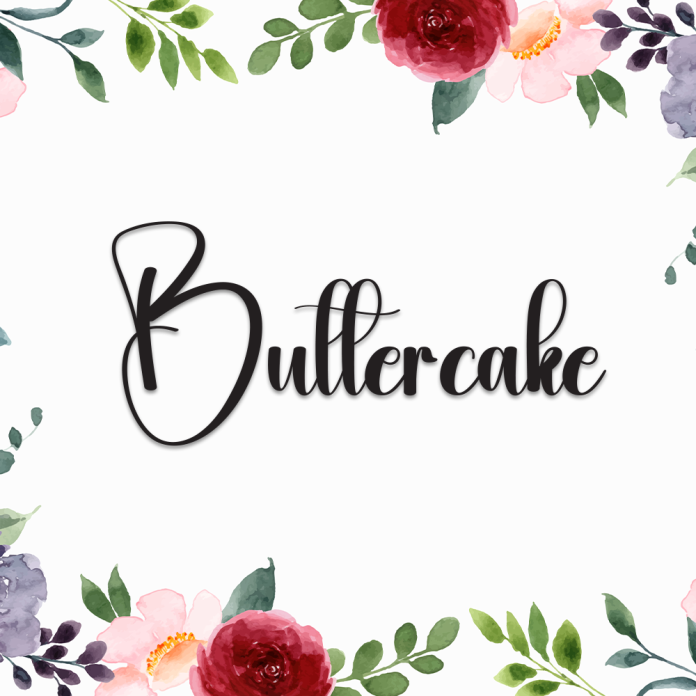
Buttercake is a delightful handwriting font that combines smooth curves with a soft, cozy charm. It feels like a handwritten note on a recipe card or a warm greeting from a loved one—full of personality, comfort, and love.
Perfect for bakery branding, recipe books, greeting cards, craft projects, and sweet social media posts, Buttercake adds a homemade touch to any design.
Smooth and gentle handwritten style
Rounded, warm letterforms with a friendly feel
Ideal for sweet branding, food packaging, DIY projects, and heartfelt designs
Add a spoonful of charm to your work with Buttercake, the handwriting font that feels as sweet as it looks.